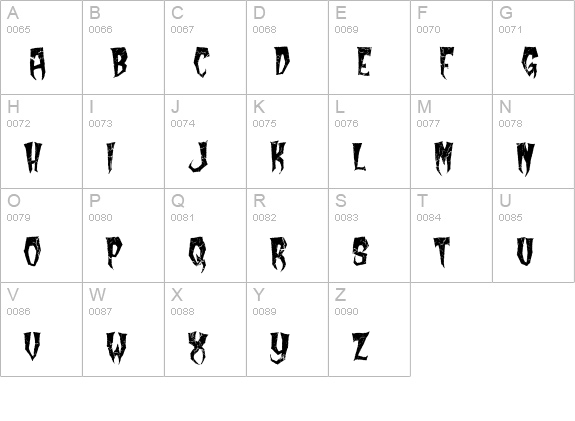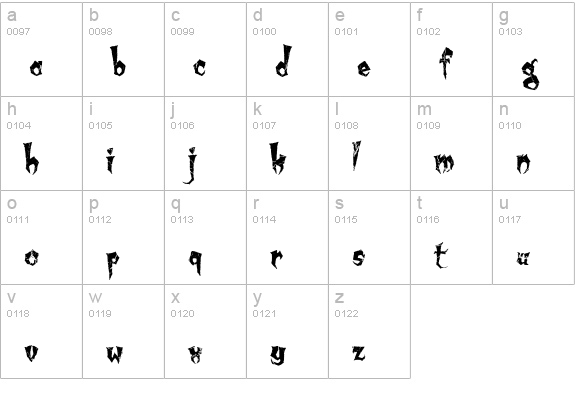
Kreepy Krawly Font Details
Kreepy Krawly font is a spooky and mysterious typeface that will add an eerie touch to your designs. With its twisted and jagged letterforms, this font exudes a sense of darkness and horror perfect for Halloween-themed projects or any design that requires a touch of the macabre. The sharp edges and creepy details of Kreepy Krawly font make it a standout choice for posters, invitations, and other creative projects where you want to make a statement. Best of all, Kreepy Krawly font is available for free download at FontsMarket.com. This means you can easily add this chilling font to your collection without any cost. Whether you're a designer looking to expand your font library or someone planning a spooky event, Kreepy Krawly font is a must-have for adding a touch of fright to your creations. Download it now and unleash the dark and creepy side of your designs!